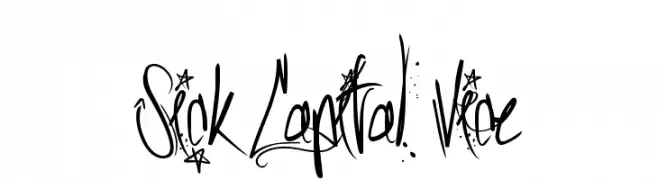
An ancient script-inspired font with bold, angular, and geometric characters.
A circuit board-inspired font with intricate line work and a futuristic style.
An edgy, graffiti-inspired font with dynamic strokes and urban flair.
A bold, graffiti-inspired font with dynamic, angular strokes.
Bold, graphic display font inspired by street art and propaganda.